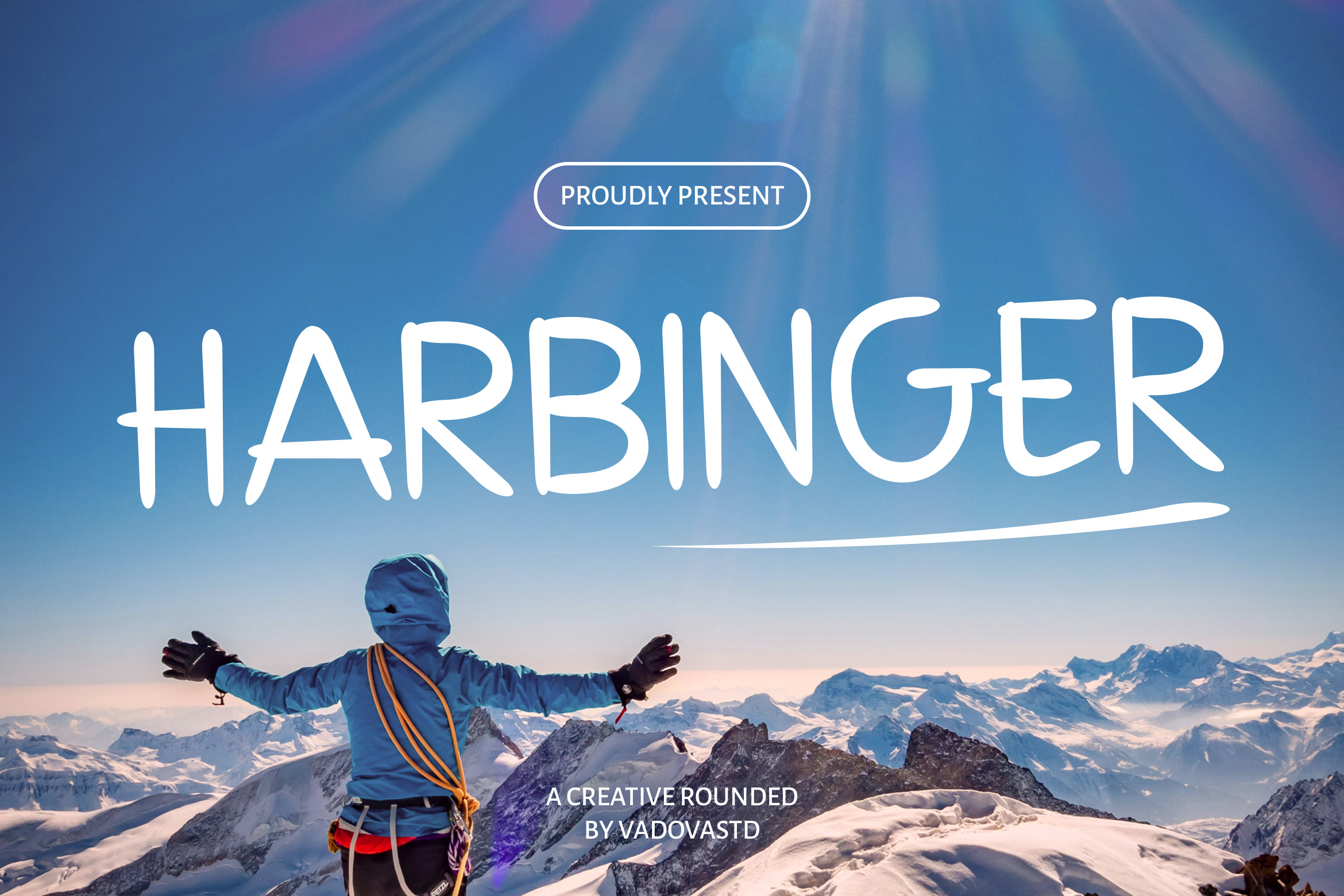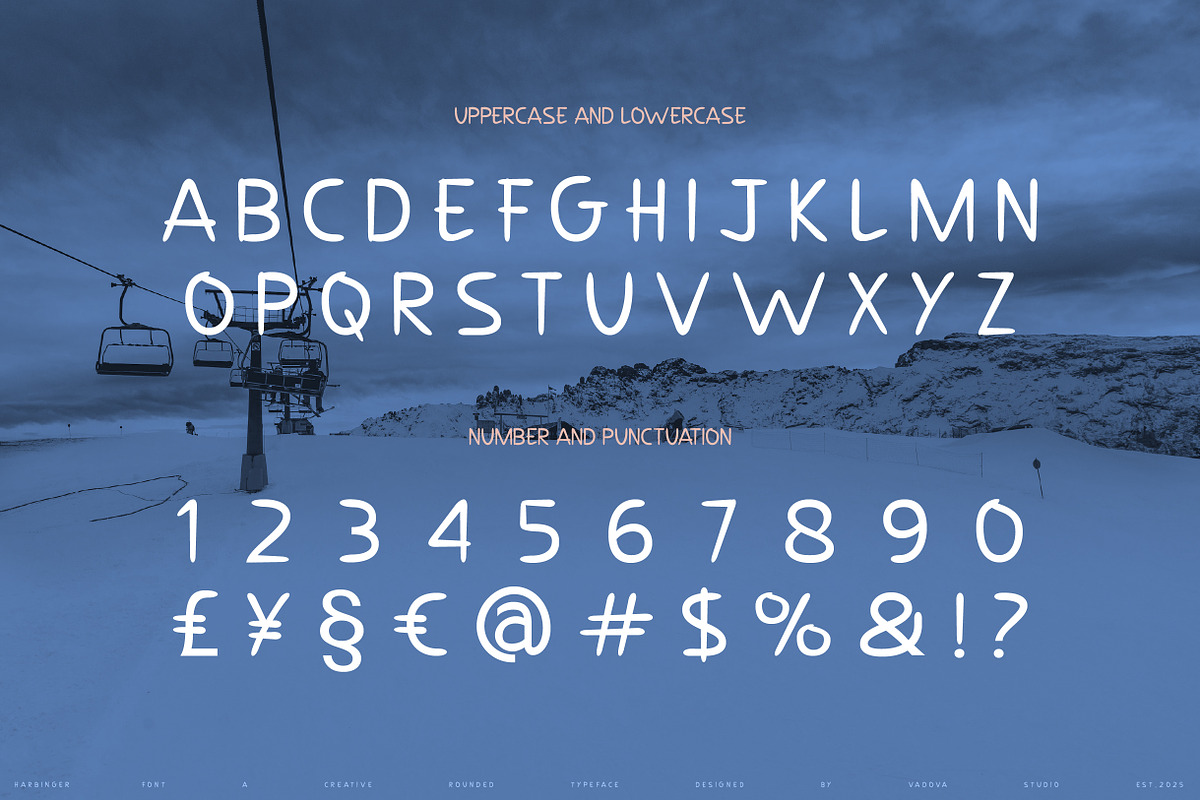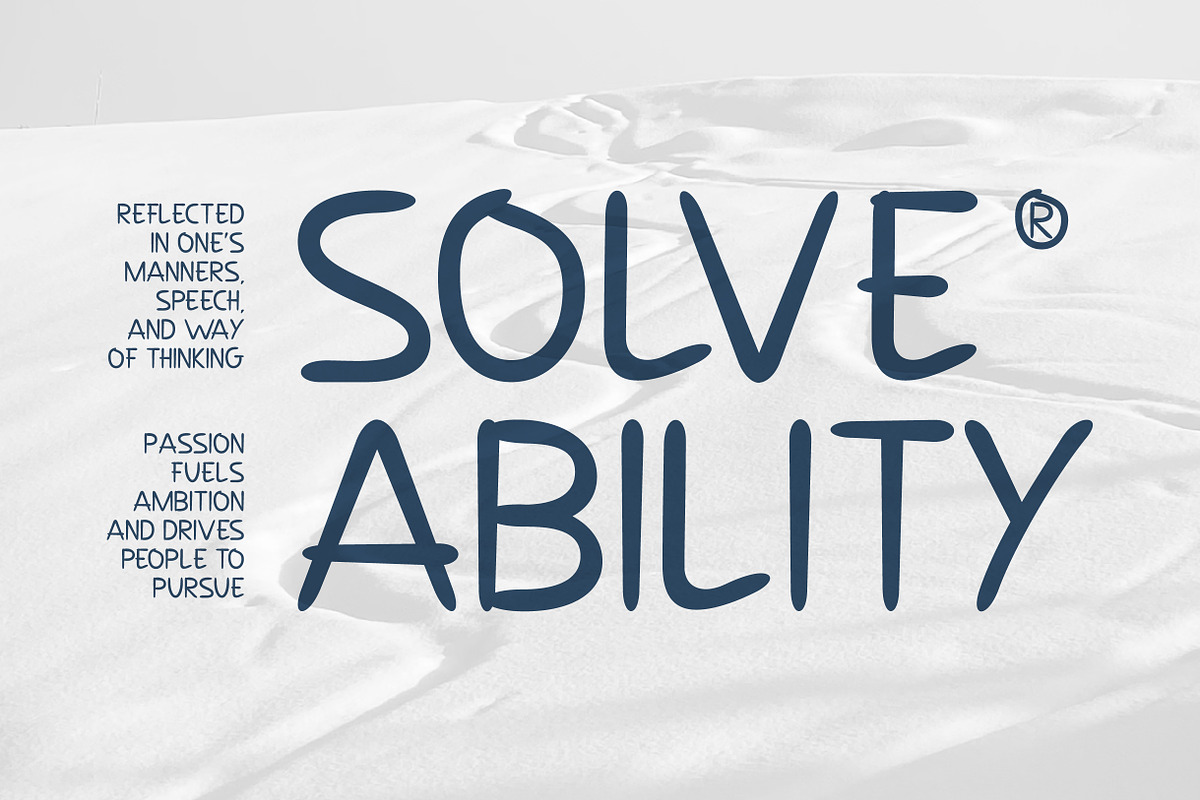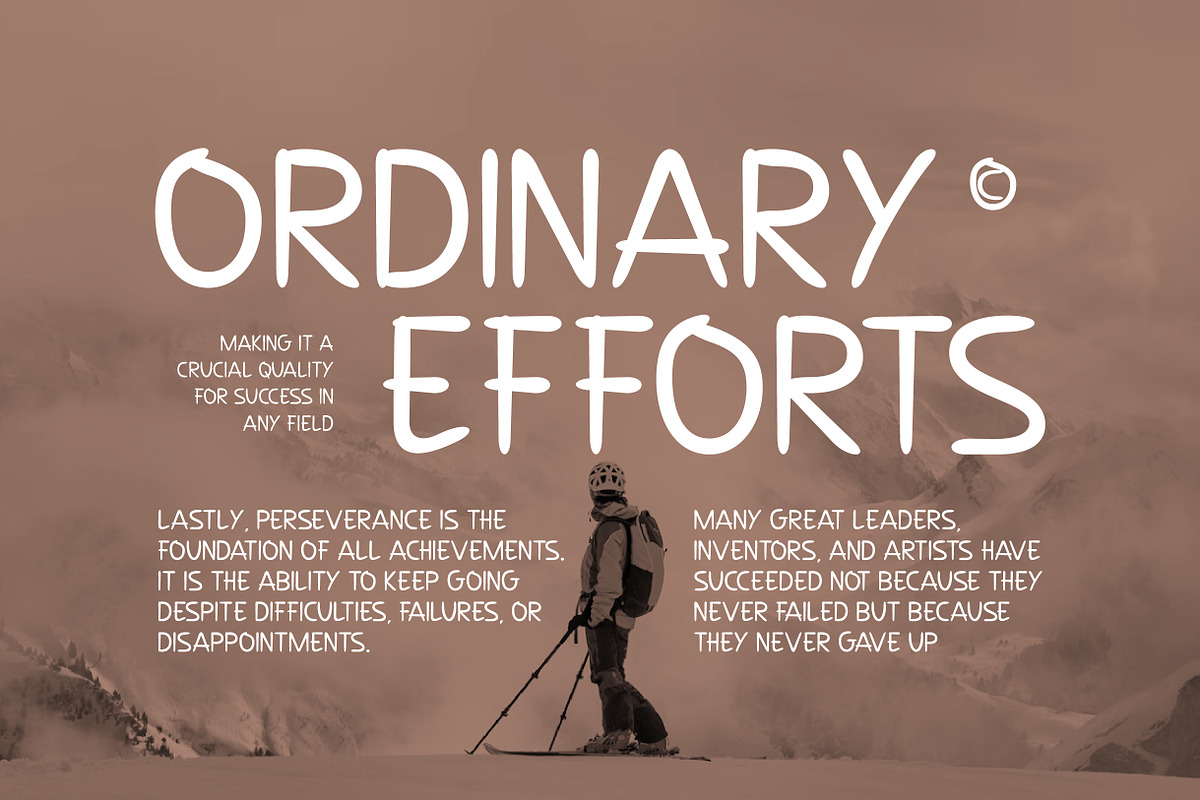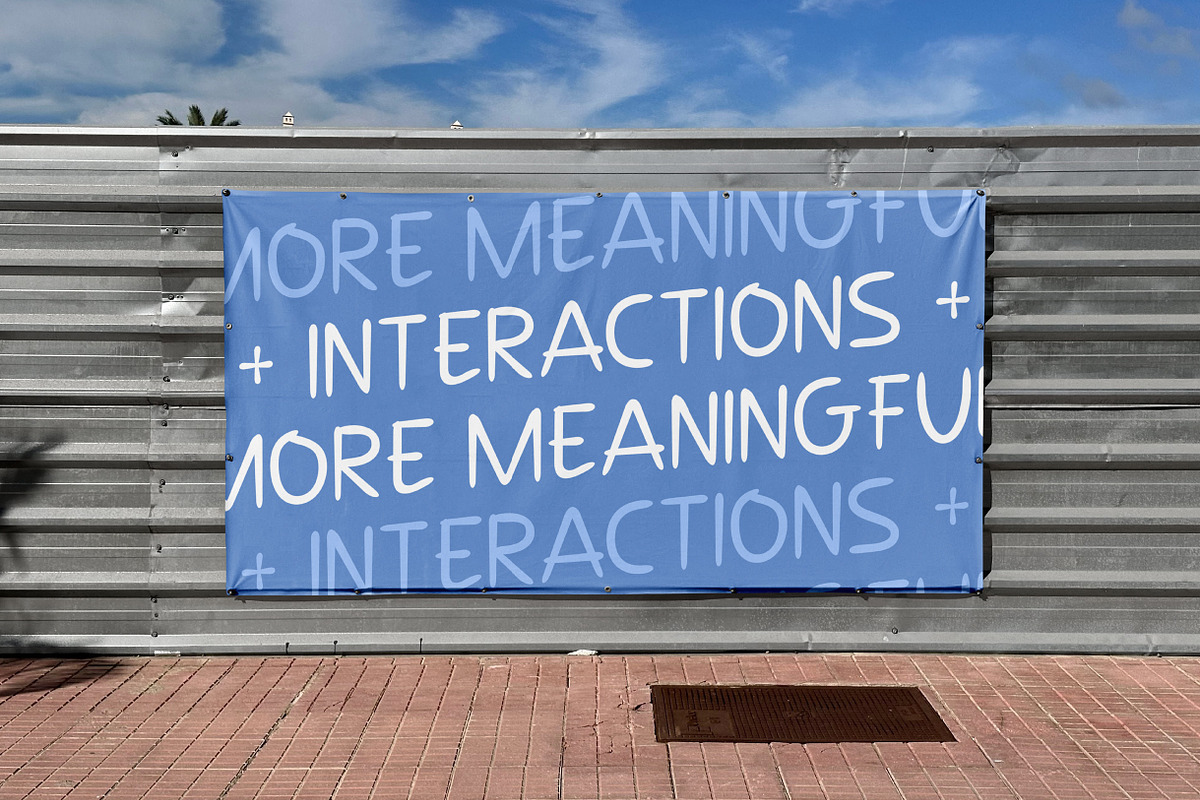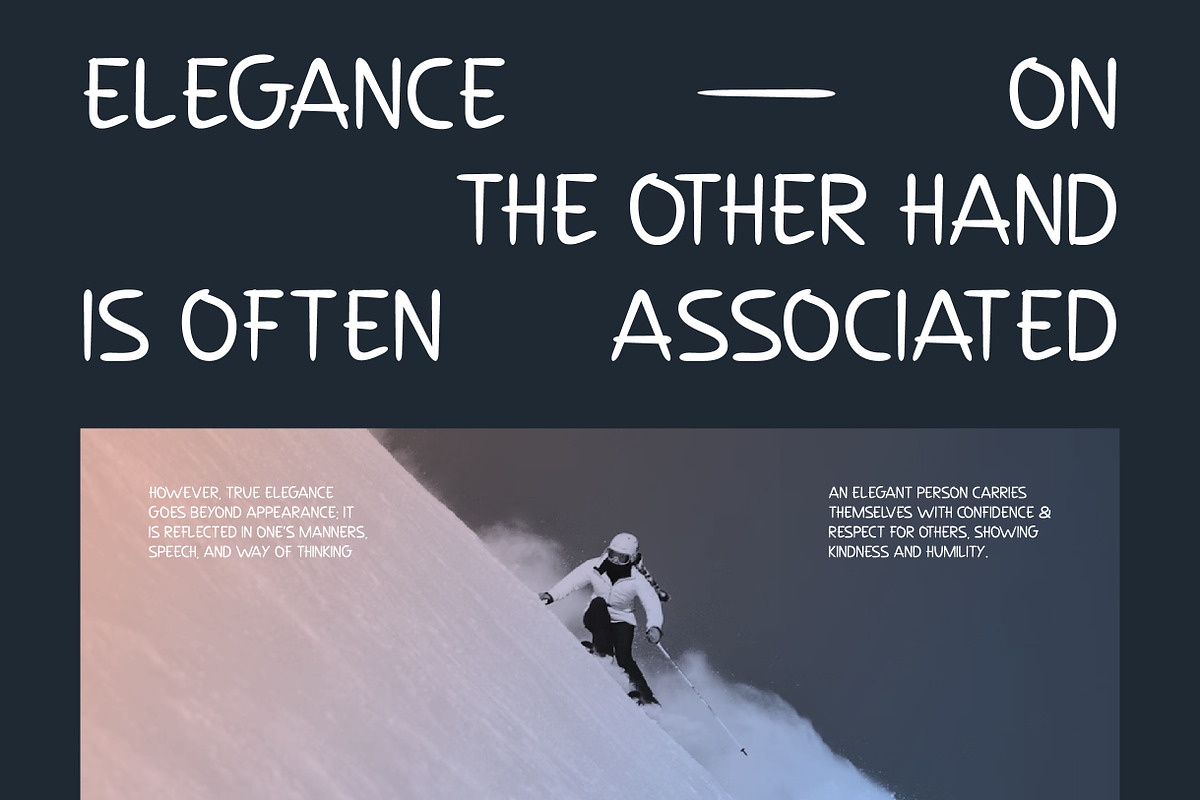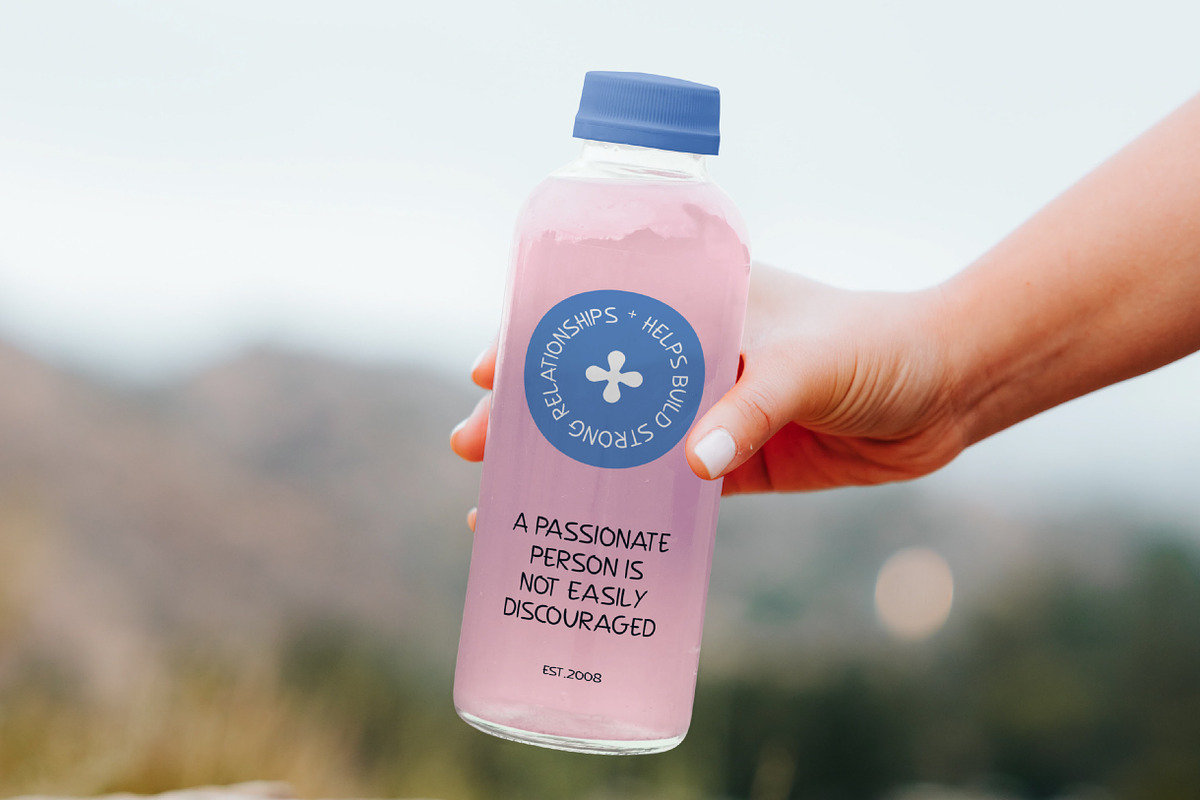
Harbinger Creative Rounded Font
Harbinger is a creative rounded display font inspired by exploration, adventure, and natural outdoor aesthetics. With its soft hand-drawn character shapes and playful rounded strokes, Harbinger brings a warm and approachable personality to any design project. The font features smooth curves, slightly irregular handwritten forms, and balanced spacing that create a relaxed and friendly typographic tone.
Harbinger is designed for projects that require a friendly and natural visual tone. Its rounded handwritten structure works beautifully for outdoor branding, travel graphics, lifestyle marketing, inspirational quotes, and creative editorial layouts. Designers can use Harbinger to create engaging headlines, social media visuals, adventure posters, and modern brand identities that feel warm, authentic, and approachable.
- Playful rounded letterforms inspired by casual handwritten styles
- Soft organic shapes that create a warm and friendly visual tone
- Smooth curves and natural stroke endings for a relaxed appearance
- Slightly irregular character details adding personality and charm
- Comfortable spacing designed for clear and expressive display text
- Creative brand identities seeking a friendly and approachable tone
- Travel blogs, outdoor adventure brands, and lifestyle websites
- Inspirational posters, quotes, and motivational graphics
- Product packaging for handmade goods, crafts, and lifestyle products
- Social media templates and creative marketing visuals with a playful feel